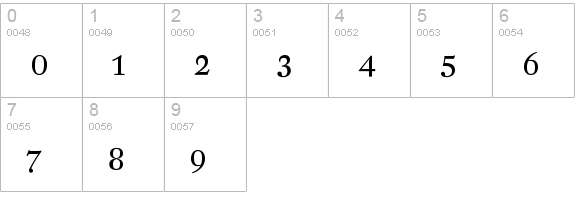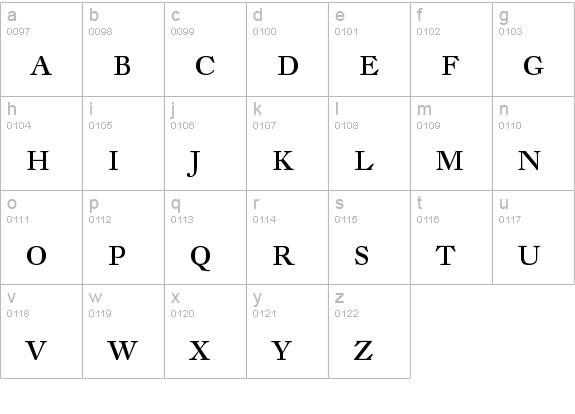
DTLFleischmannD-Caps Font Details
The DTLFleischmannD-Caps font is a stunning display typeface that exudes elegance and sophistication. With its unique design and intricate details, this font is perfect for adding a touch of class to your projects. The uppercase characters are beautifully crafted with a vintage-inspired flair, making them ideal for headlines, logos, and other eye-catching design elements. What sets DTLFleischmannD-Caps apart is that it is available for free download at FontsMarket.com. This means that you can easily access this exquisite font without any cost, making it a valuable addition to your font collection. Whether you're working on a branding project, a poster design, or any other creative endeavor, DTLFleischmannD-Caps will elevate your work to new heights with its timeless appeal and artistic charm. Download it today and unleash the beauty of this exceptional font in your designs.